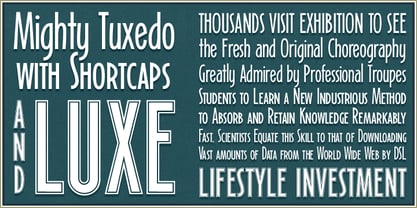
Mighty Tuxedo AOE Font
This Mighty Tuxedo AOE Font is perfect for formal event branding, black-tie affair invitations, luxury menswear advertising, prestigious awards ceremonies, high-end restaurant materials, exclusive club signage, elegant wedding stationery, sophisticated gala promotions, distinguished business communications, and refined formal occasions.
What makes this Mighty Tuxedo AOE Font exciting is its distinguished elegance that captures the sophisticated power and formal refinement of black-tie excellence. The font features bold, authoritative letterforms with classic proportions that convey prestige, formal sophistication, and masculine elegance. Its distinguished character and formal authority make it ideal for brands seeking to communicate luxury, exclusivity, and refined masculinity in premium formal markets.
The Mighty Tuxedo AOE Font family includes regular, medium, and bold weights with formal alternates and distinguished variants. This comprehensive formal font family provides designers with prestigious typographic tools to create sophisticated compositions while maintaining the distinguished character essential for luxury formal wear and exclusive event communications.
Luxury brands and formal event organizers consistently choose Mighty Tuxedo AOE Font Free Download for projects requiring distinguished elegance and formal sophistication. This font's distinctive prestigious character perfectly captures the masculine refinement and formal excellence that resonate with audiences who appreciate black-tie sophistication and exclusive luxury experiences.
The distinguished construction of Mighty Tuxedo AOE Font showcases powerfully elegant letterforms with formal proportions that ensure exceptional sophistication across all prestigious applications. Its authoritative appearance and refined details create memorable impressions while maintaining the readability necessary for effective luxury brand communication and formal event materials.
Professional designers appreciate how Mighty Tuxedo AOE Font brings immediate prestige and formal authority to brand communications. The font's distinguished nature allows organizations to communicate luxury and exclusive sophistication while maintaining the professional quality necessary for effective positioning in premium formal wear and exclusive event markets.
The timeless appeal of Mighty Tuxedo AOE Font makes it particularly effective for brands emphasizing formal sophistication, masculine elegance, and exclusive luxury. Its distinguished character resonates strongly with audiences who appreciate black-tie refinement, formal excellence, and brands that represent the pinnacle of sophisticated masculine style.
Whether developing branding for luxury menswear or creating materials for exclusive formal events, Mighty Tuxedo AOE Font Free Download provides the distinguished typographic foundation that prestigious brands need to communicate their formal excellence, sophisticated authority, and the refined elegance that defines black-tie sophistication and masculine luxury excellence.